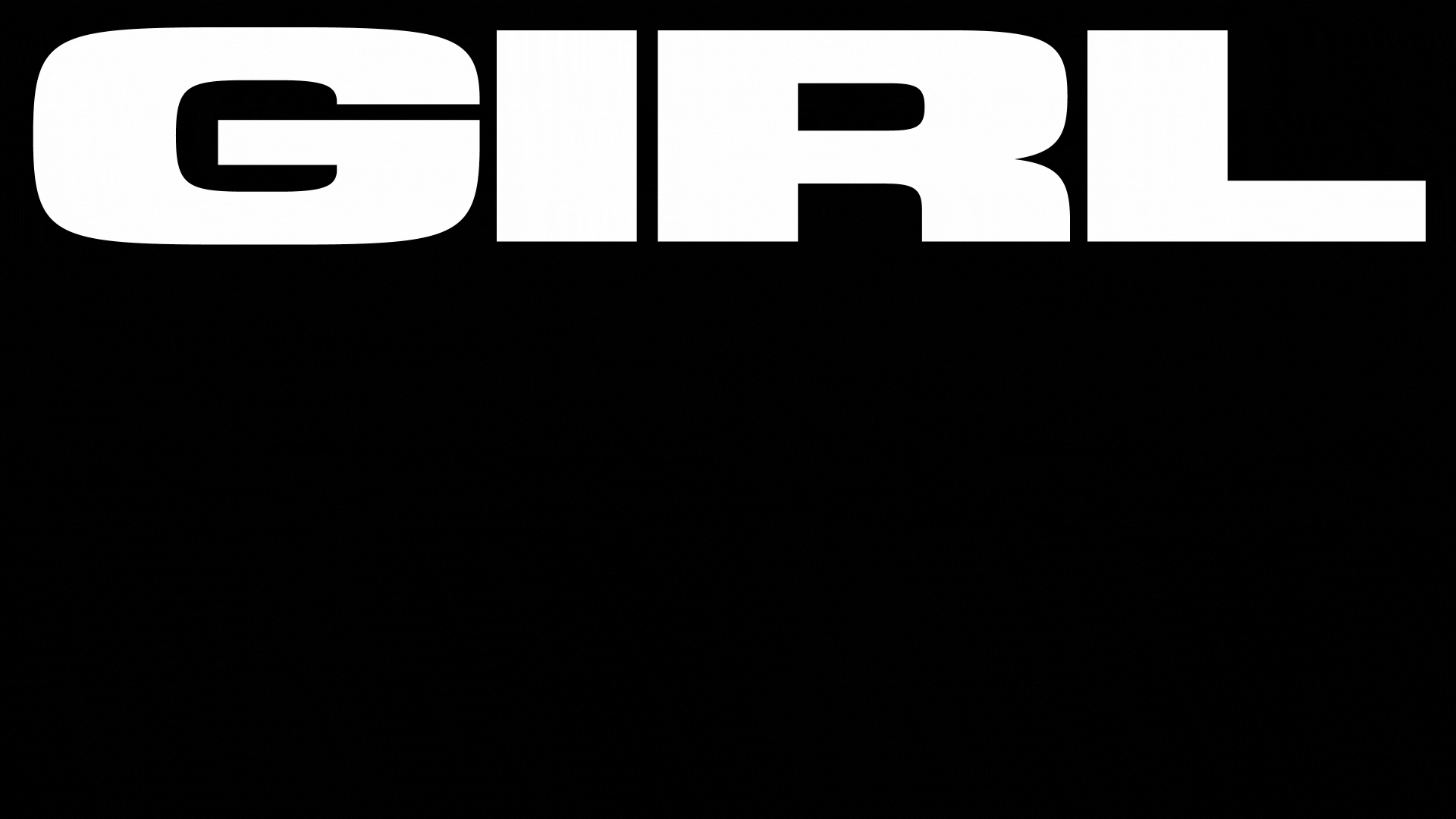
Eskimo Joe
Rebranding an Australian classic for a new stage.
Eskimo Joe
Brand identity, custom typeface and art direction.
To coincide with the release of their first single in 4 years (The First Time), and their upcoming national tour, Eskimo Joe needed a refreshed identity. We developed a new wordmark, custom typeface, visual language and a series of tour images to promote the tour and relaunch the iconic live act for their next era.
Eskimo Joe’s new custom wordmark borrows from the band’s past to take them into the future — inspired by the wide uppercase forms of Microgramma and Eurostile, and bold presence of Futura, found in early iterations of their brand.
Working with photographer Duncan Wright, we created a series of images that played with light and shadow, depth of field, refraction and unusual silhouettes. They present a warmth, a feeling of nostalgia and intimacy – a more mature interpretation of early press shots of the band.